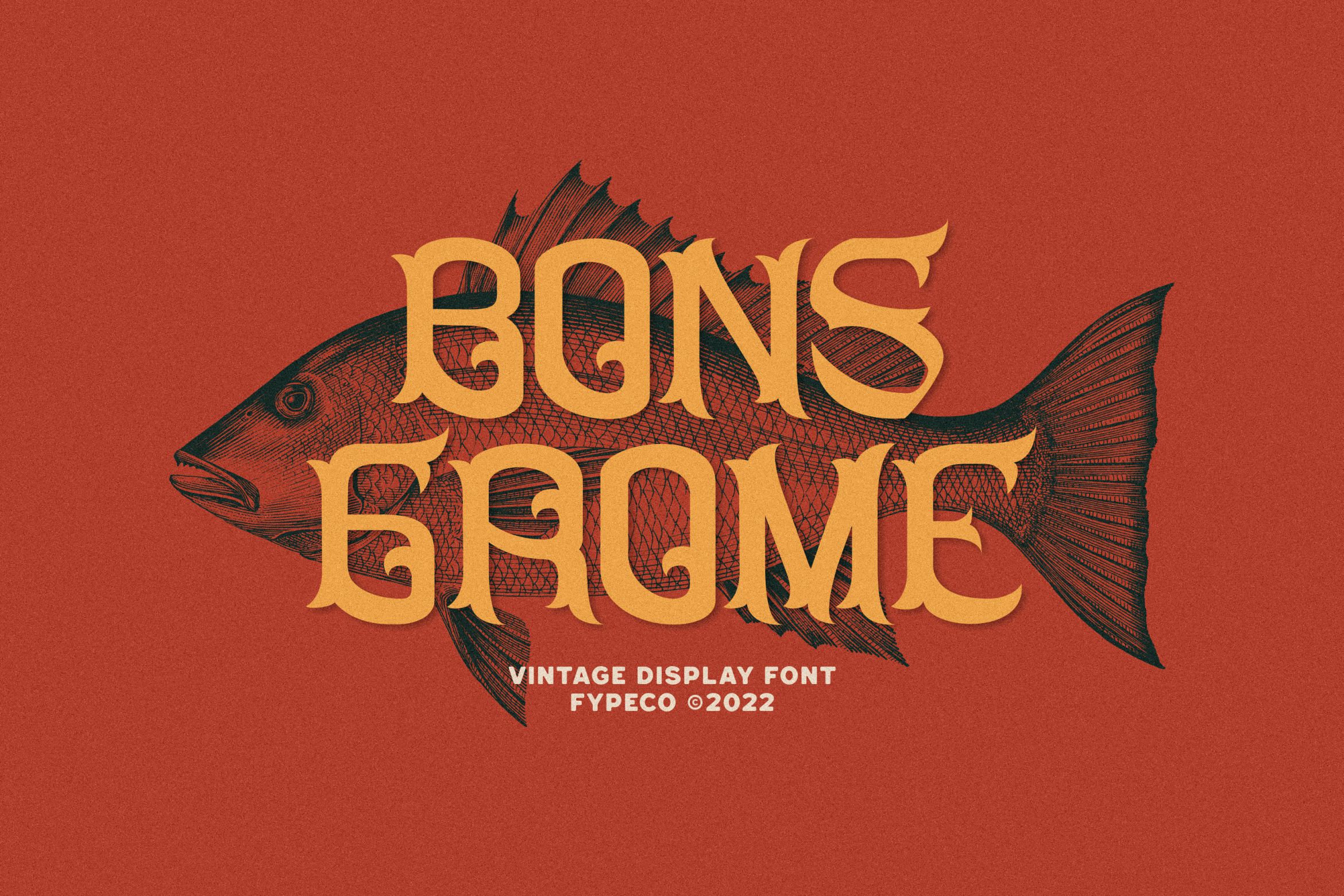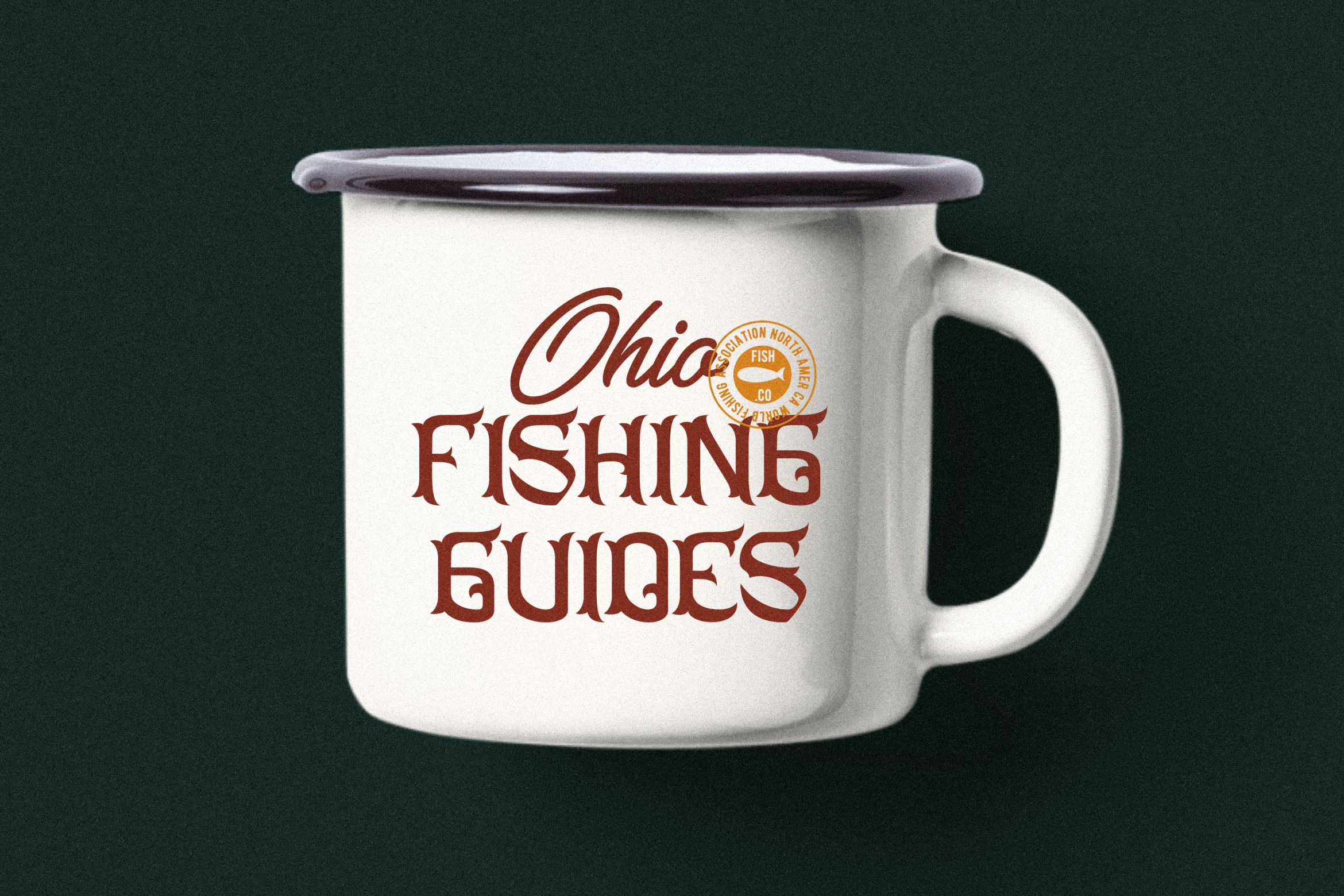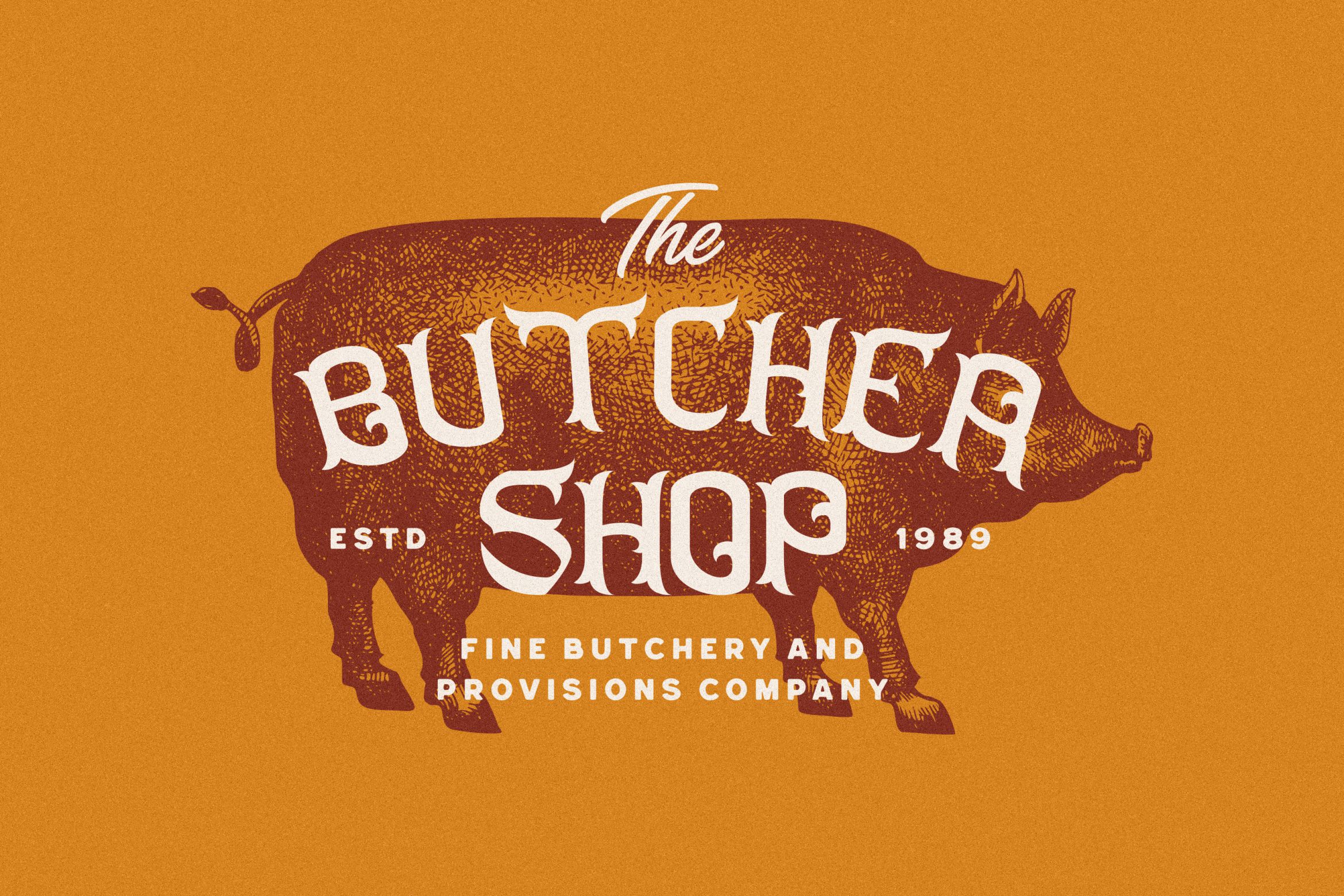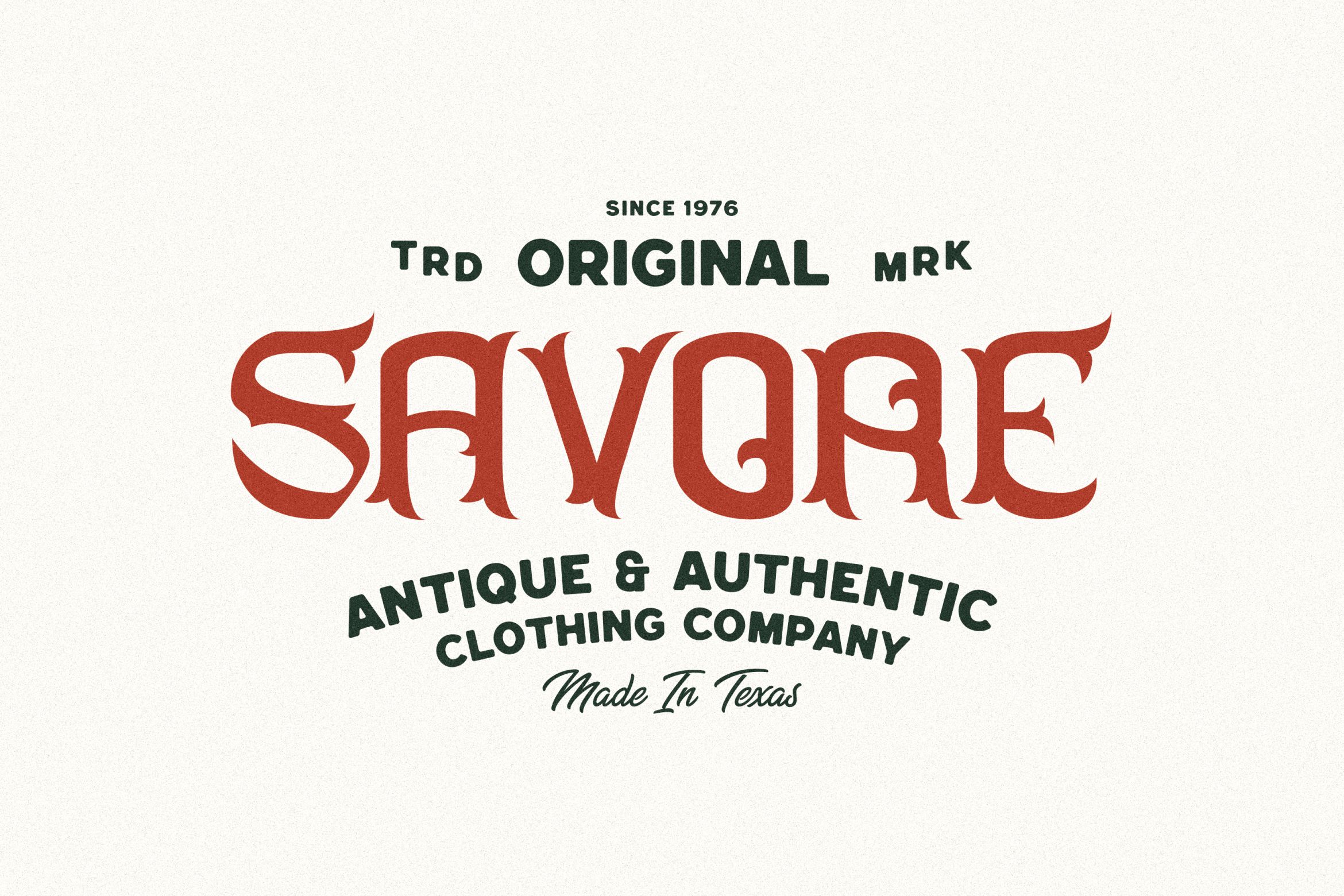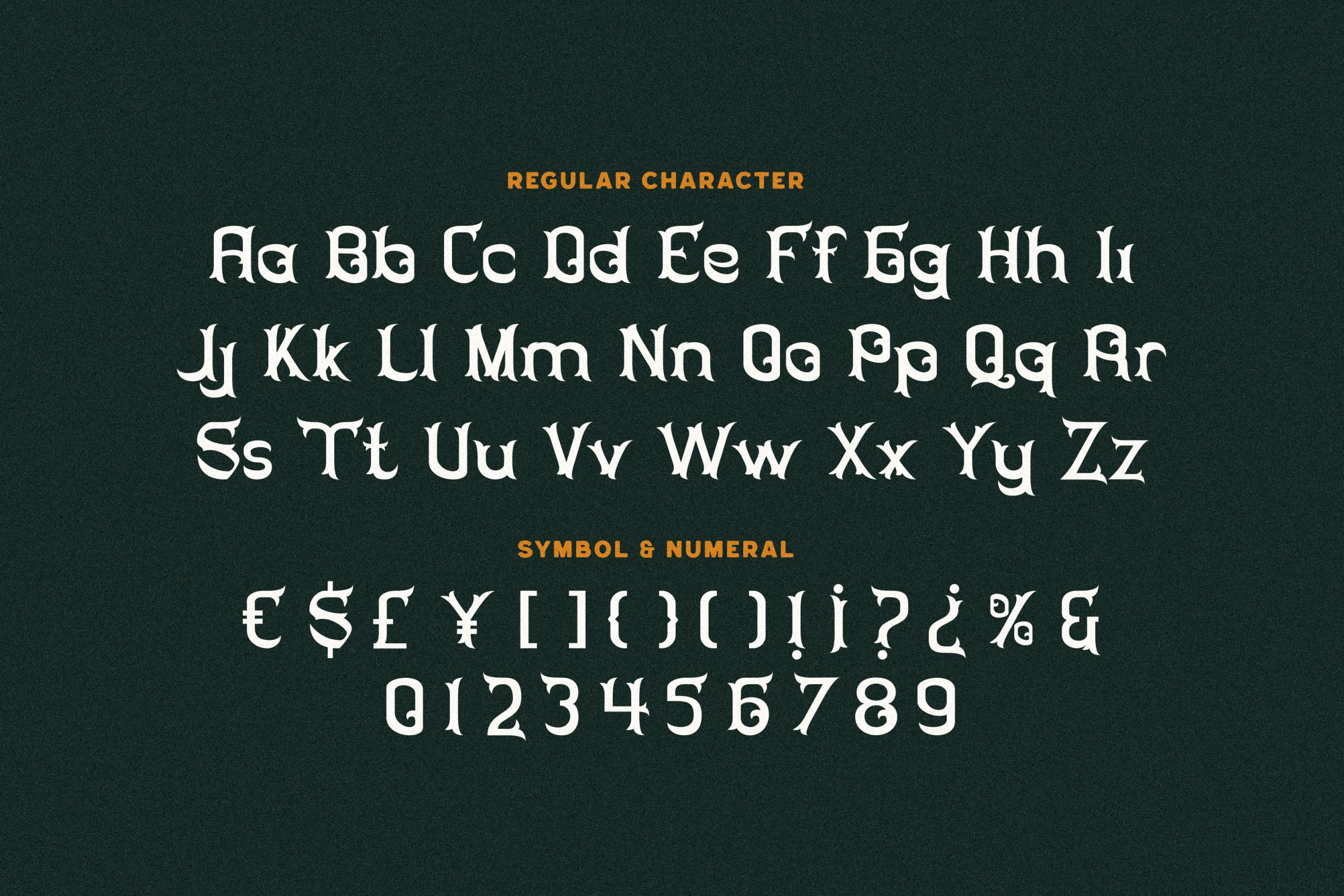
Bons Grome
This font is a vintage display typeface inspired by classic signage, retro labels, and traditional craftsmanship. Its bold curves and ornamental details give a timeless character that works beautifully for branding, packaging, logos, and editorial designs. With its handcrafted touch, this typeface evokes authenticity and nostalgia, making it a perfect choice for retro-inspired projects.
Ideal for use in coffee shops, apparel, butcheries, breweries, and outdoor brands, this font brings a rustic yet refined aesthetic. Its versatile character set includes symbols and numerals, making it reliable for both display and branding purposes. Whether applied on posters, mugs, or product labels, this typeface delivers strong personality and vintage charm.